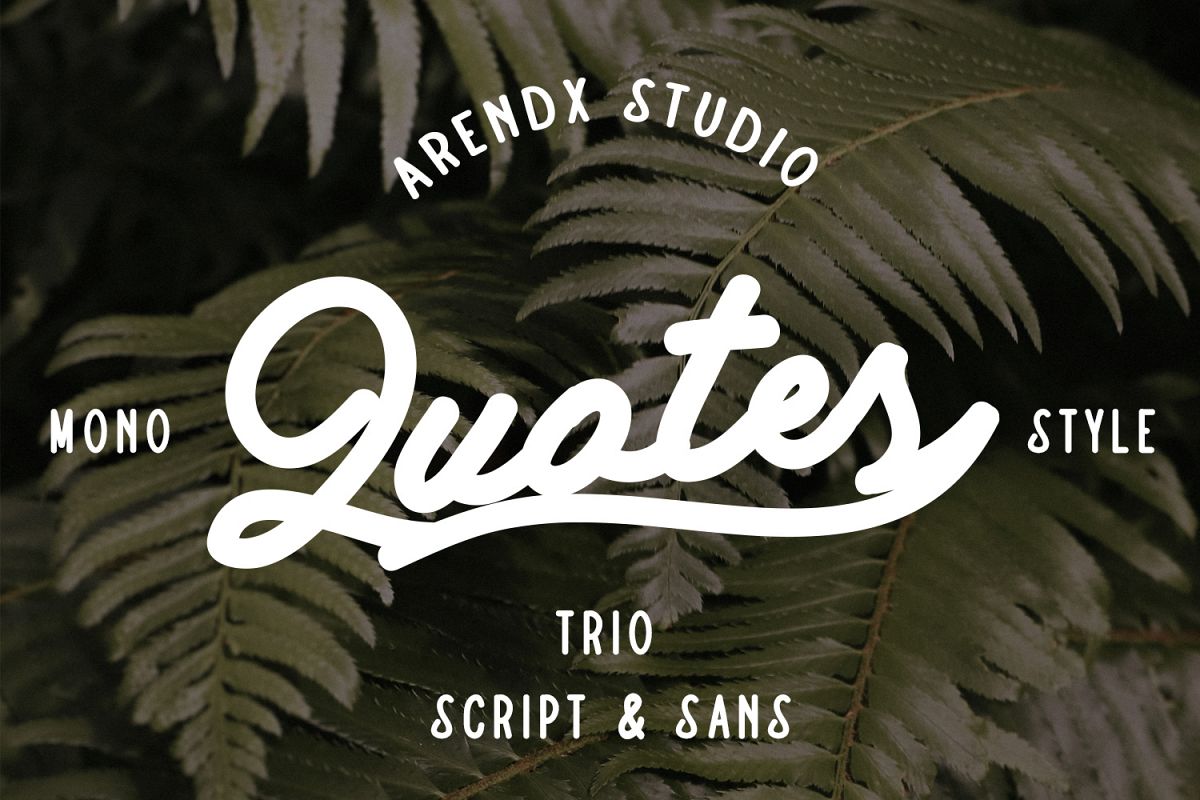
Alternate
QUOTES consists of 3 font files & 3 different type styles. This is perfect for Logotypes & Type pieces. That is the reason why I decided to make this product. I am very interested in combining Sans Serif with the script. There needs to be consistency in style, texture, weight, etc. I think QUOTES is perfect for your design project people.